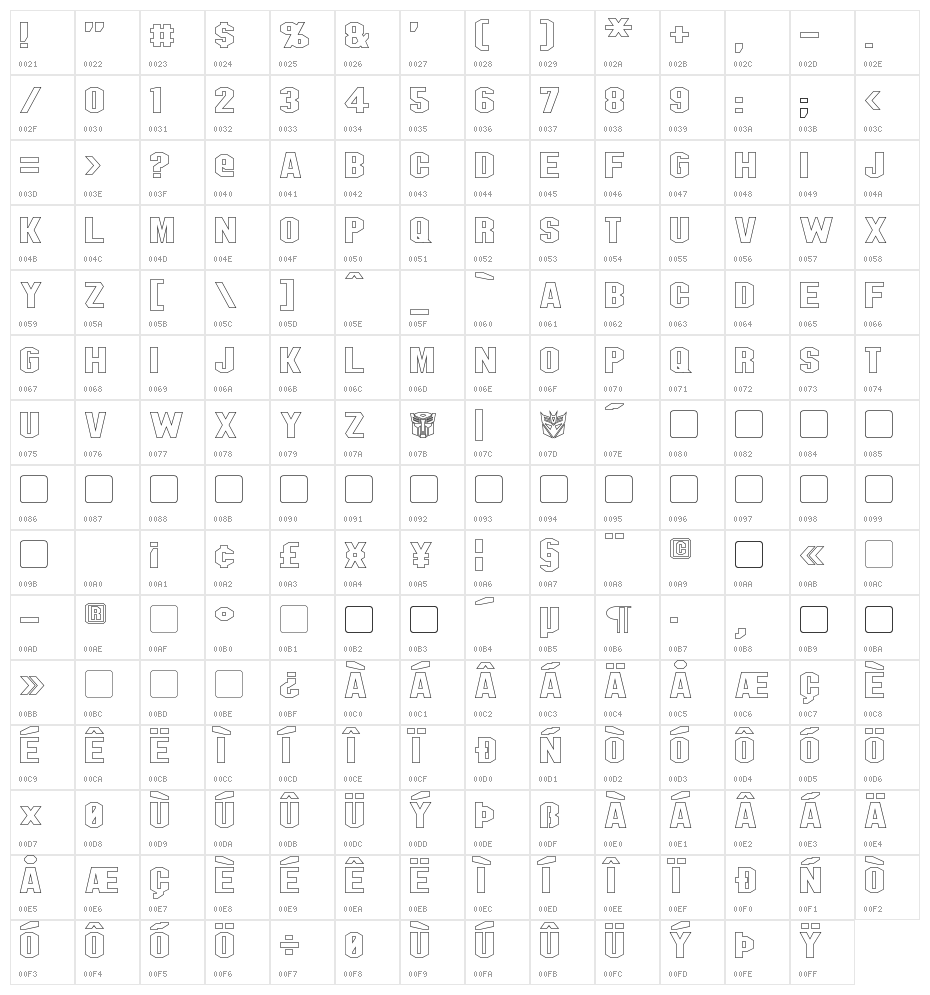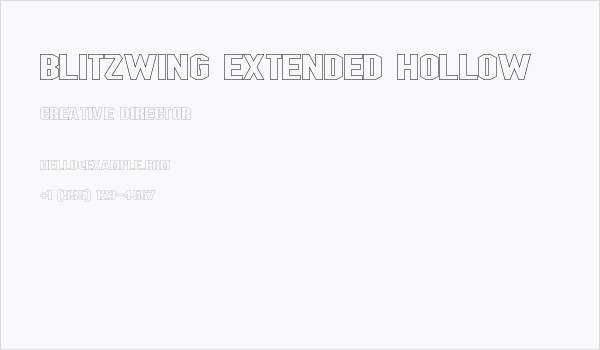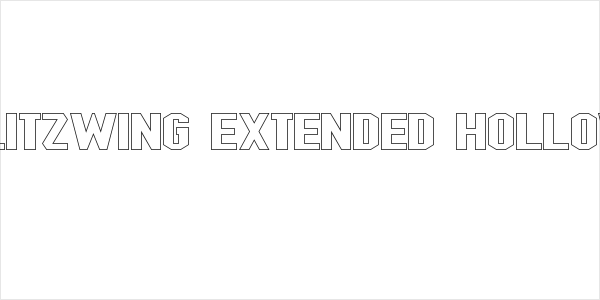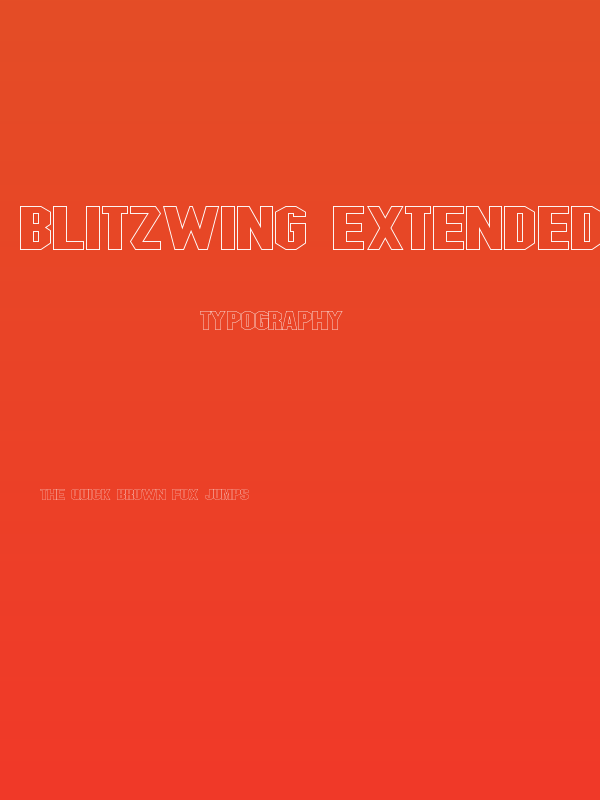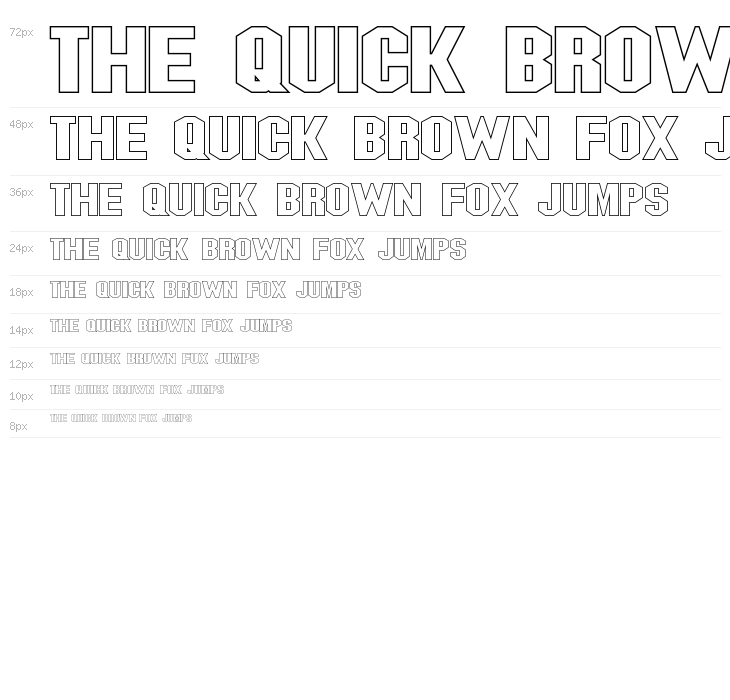
Blitzwing Extended Hollow Font
Blitzwing Extended Hollow Description
This font features a bold, geometric design with a hollow interior, creating a striking and modern appearance. The characters are constructed with clean, straight lines and sharp angles, giving them a futuristic and industrial feel. The uppercase letters are uniform in height, while the numbers and special characters maintain the same bold, hollow style. This font is highly legible and makes a strong visual impact, making it ideal for attention-grabbing designs. The extended width of the characters adds to its commanding presence, while the consistent line thickness throughout ensures a cohesive look.
| Proposed Projects | Ideal for branding, posters, headlines, and any project requiring a strong, modern aesthetic. |